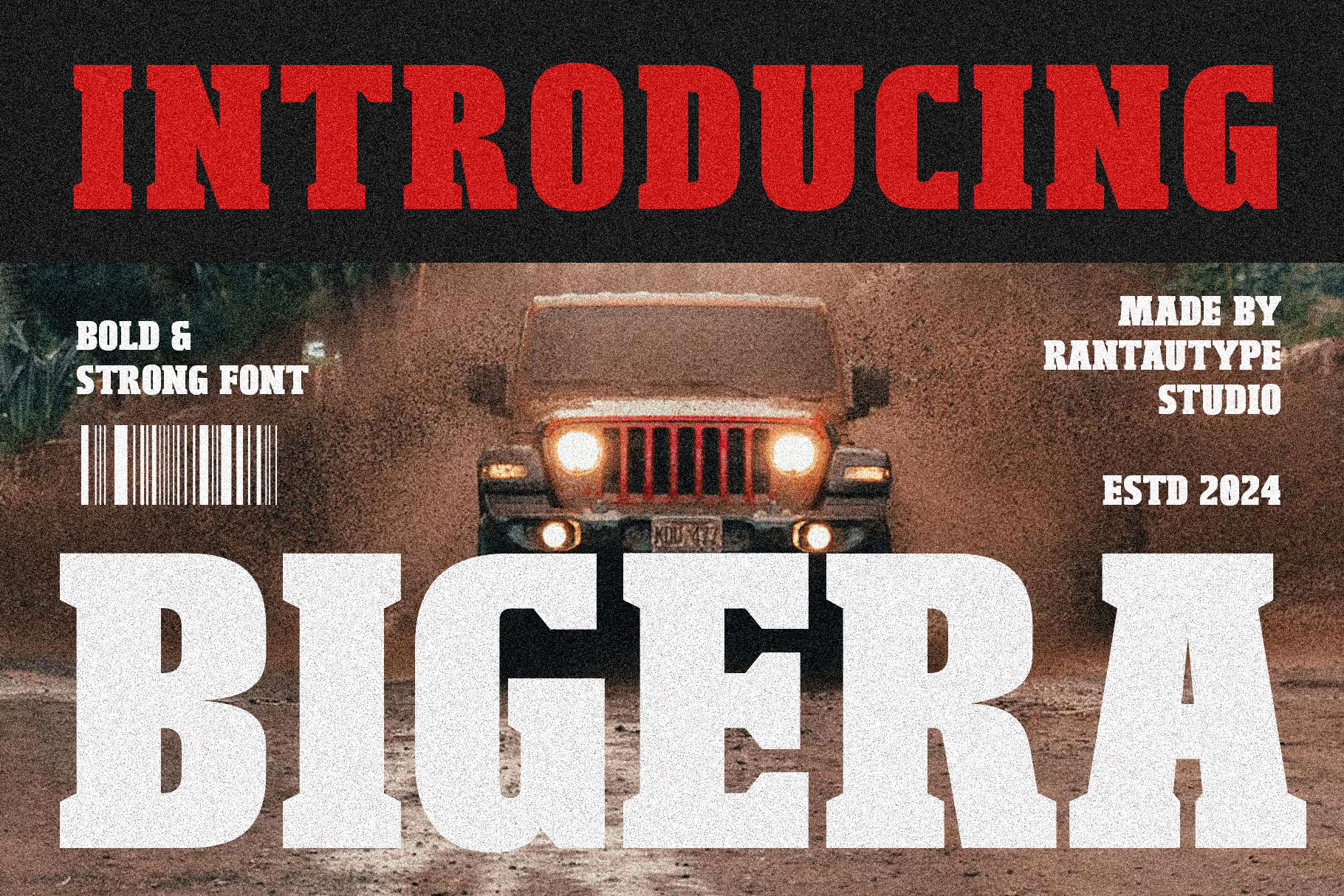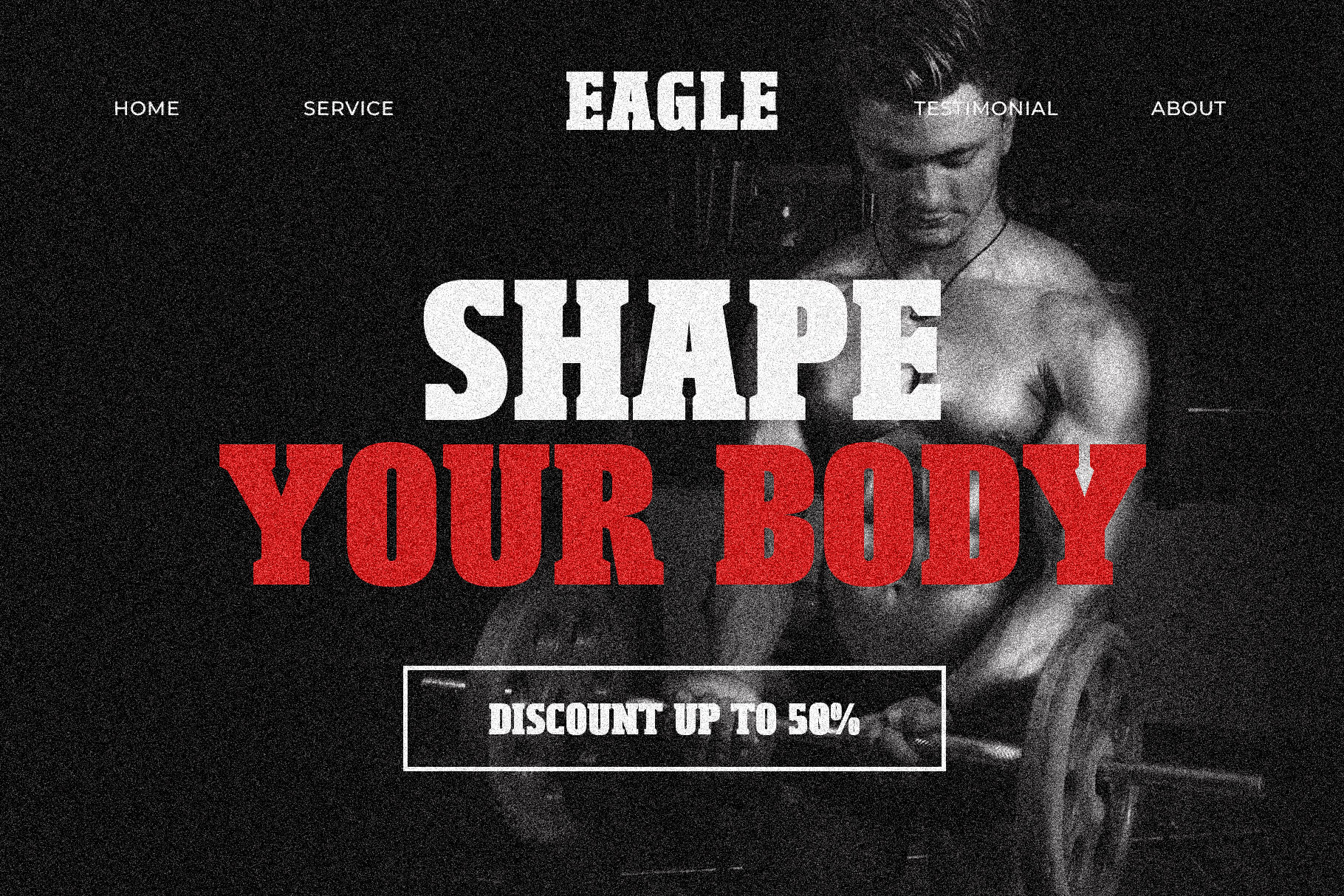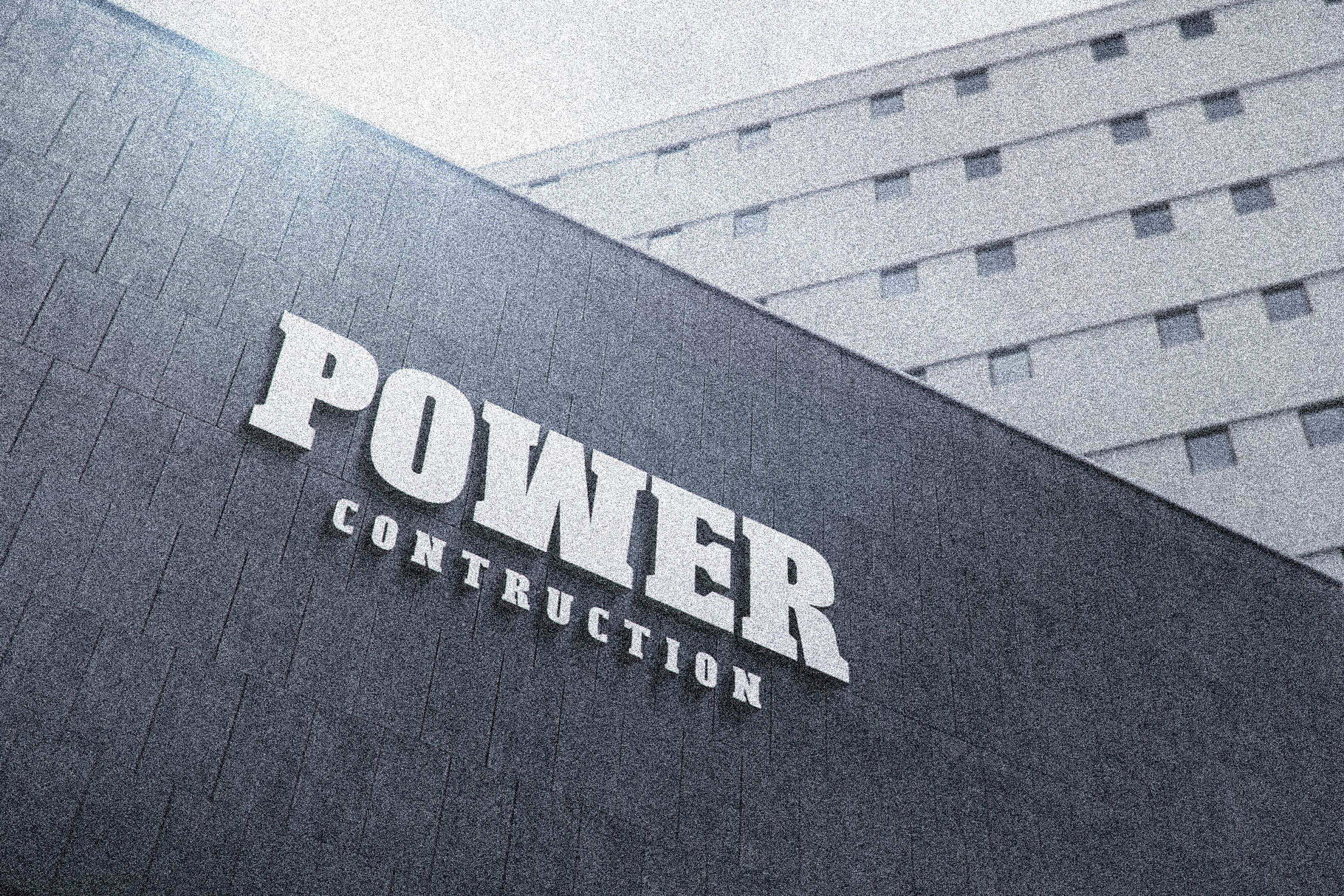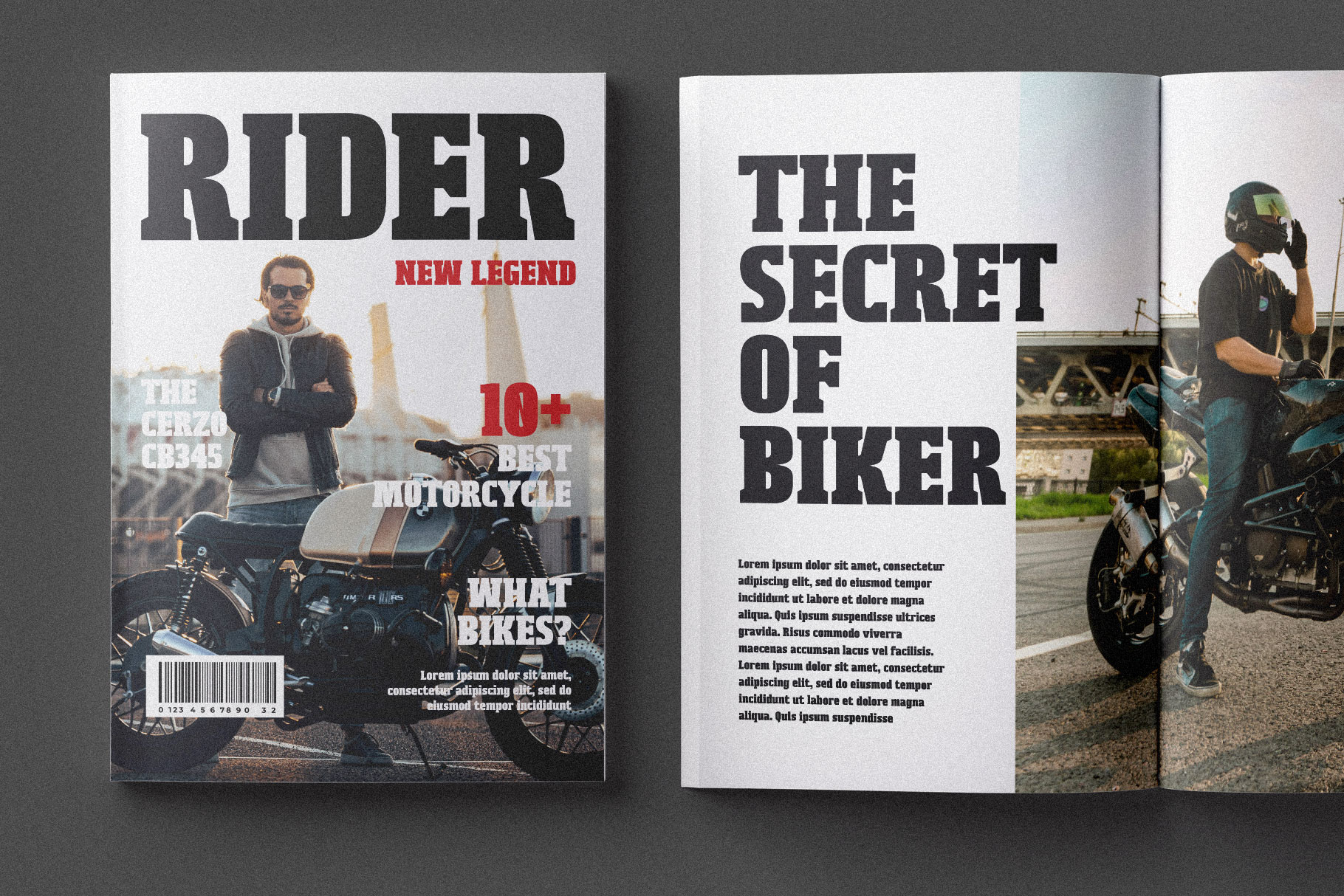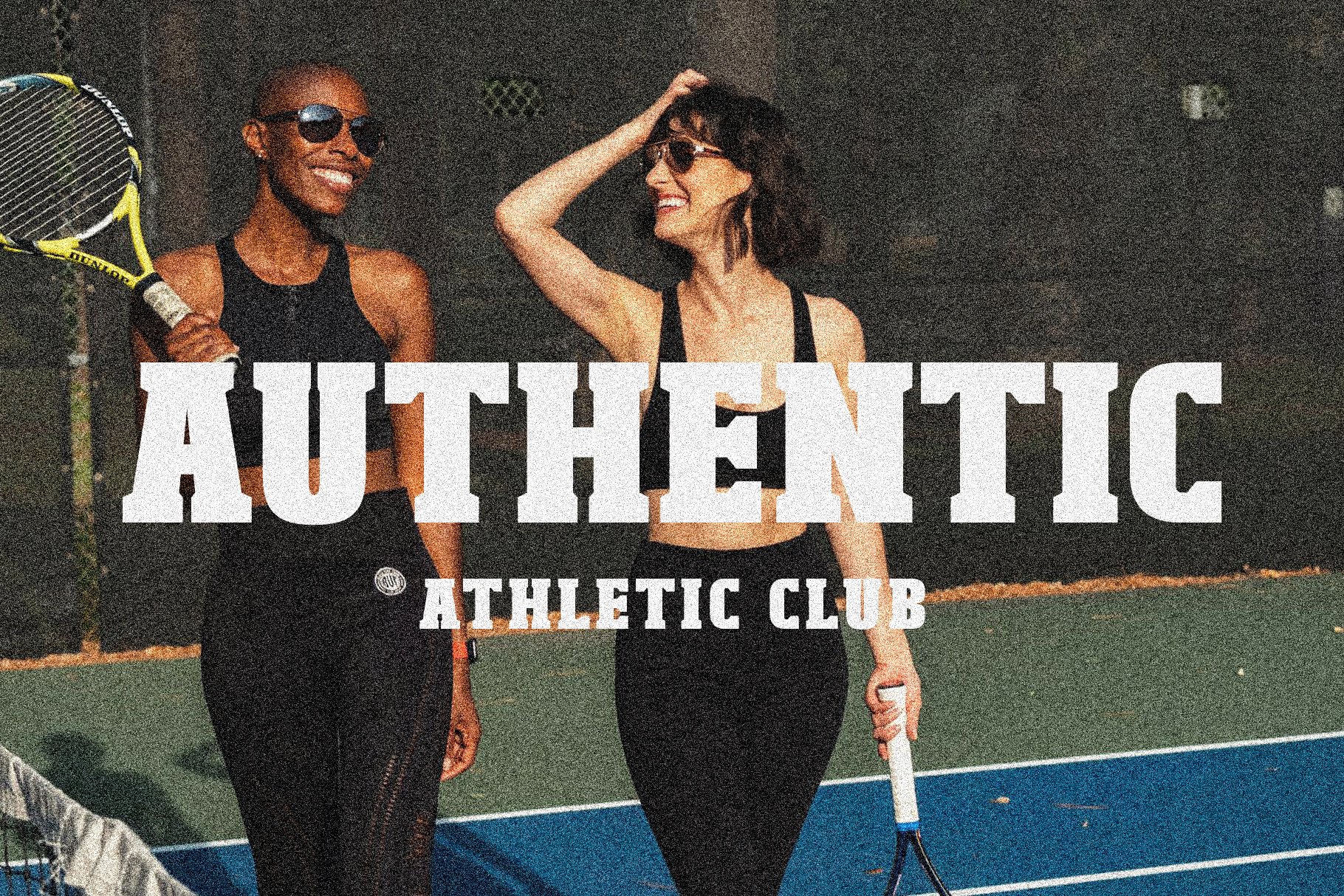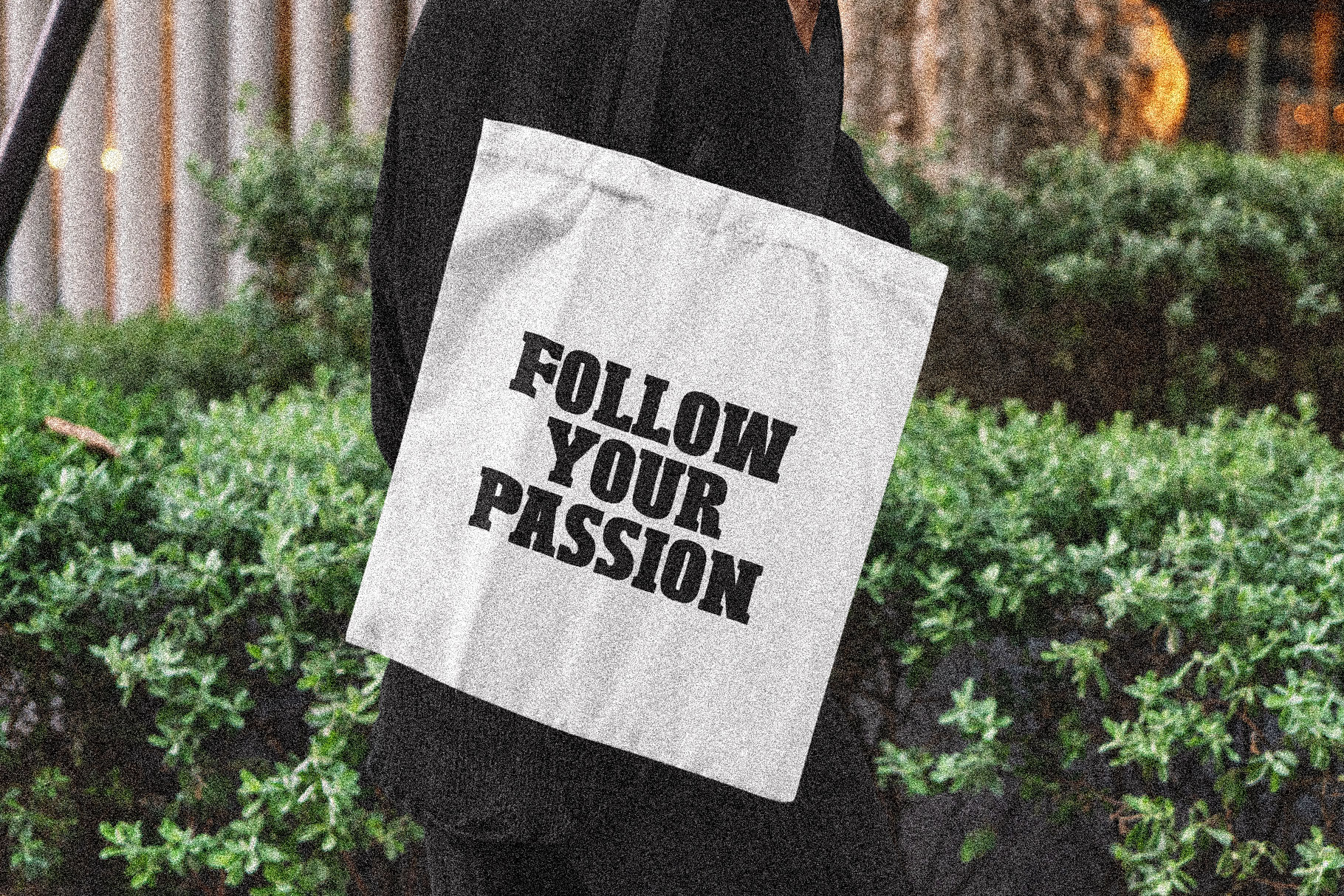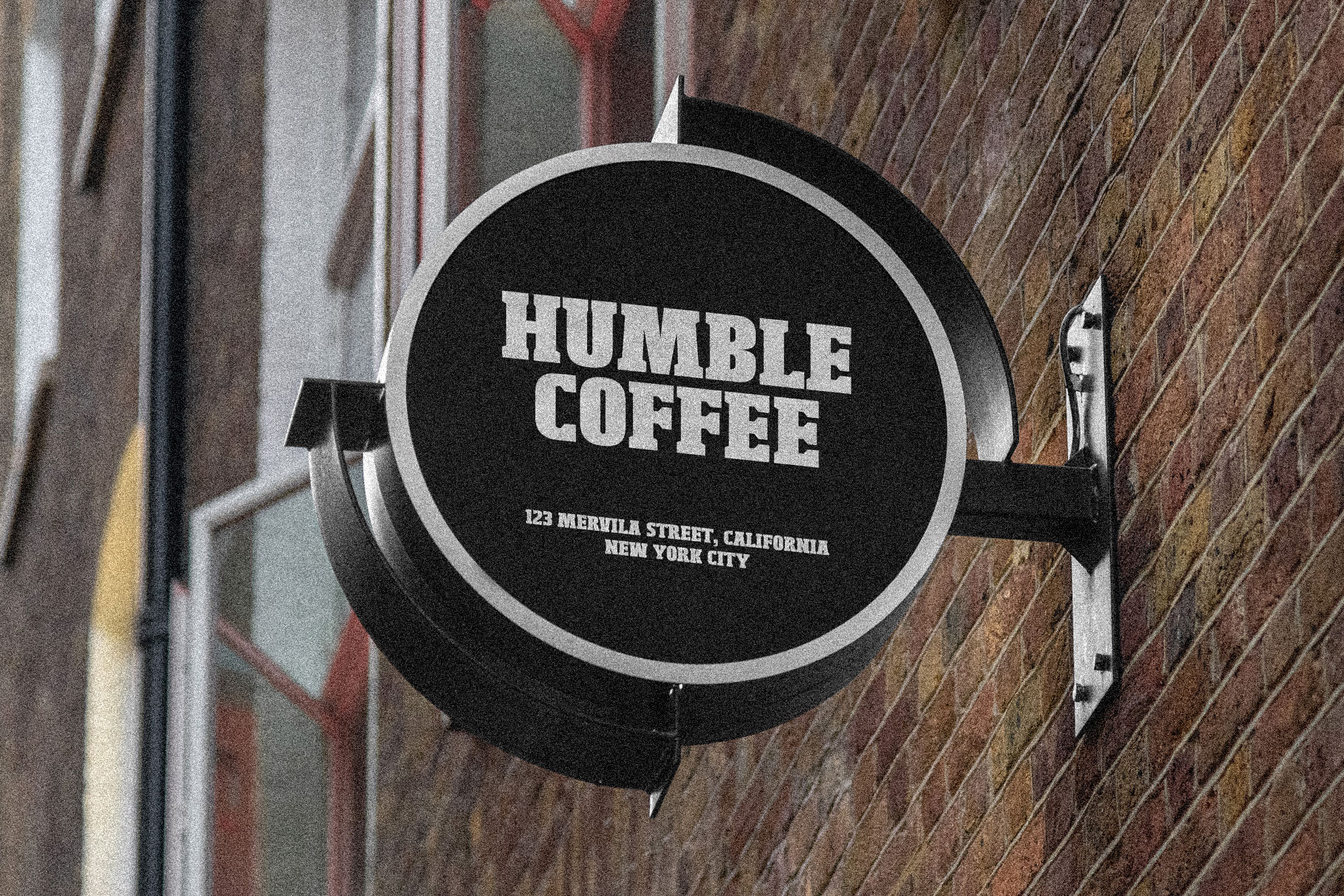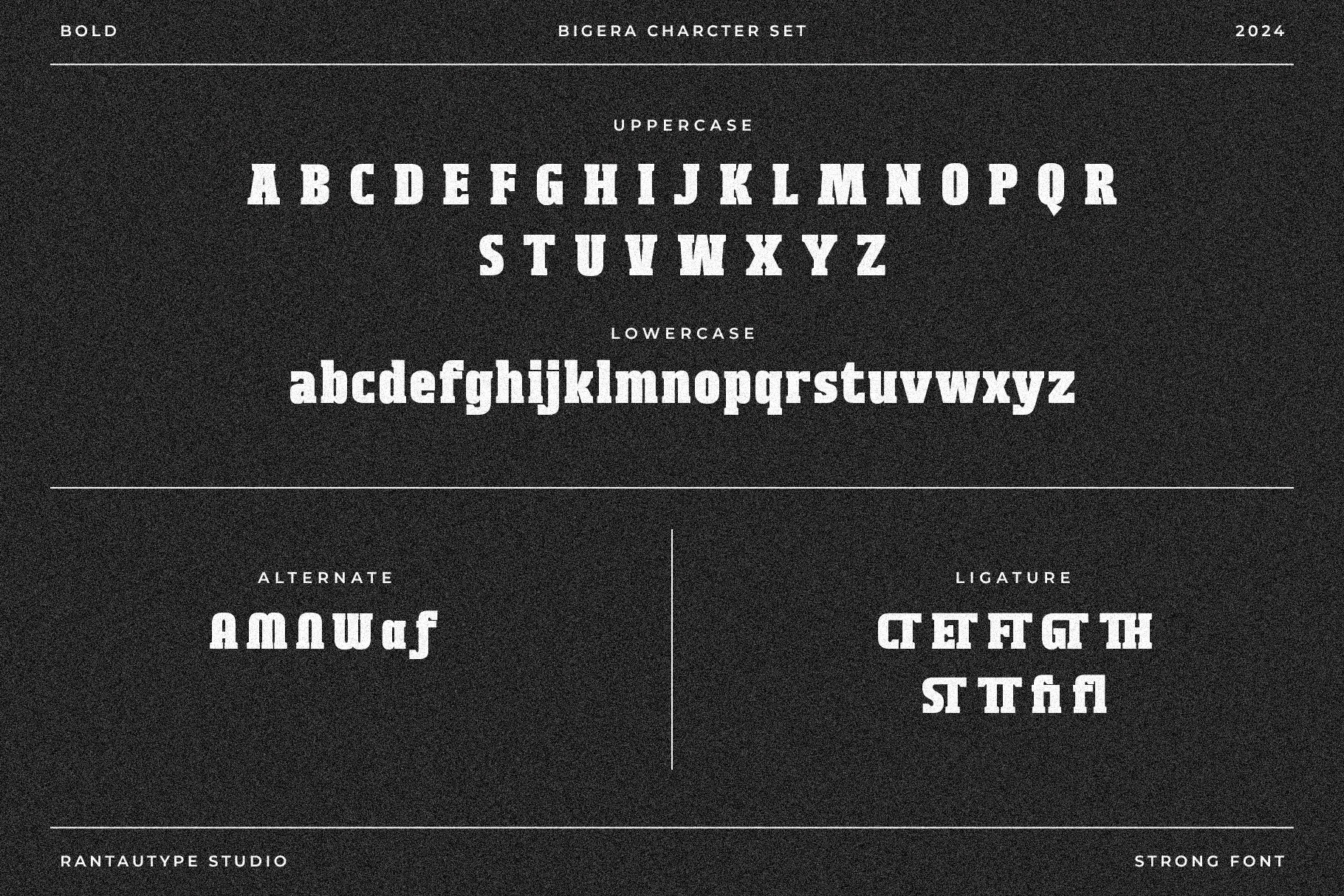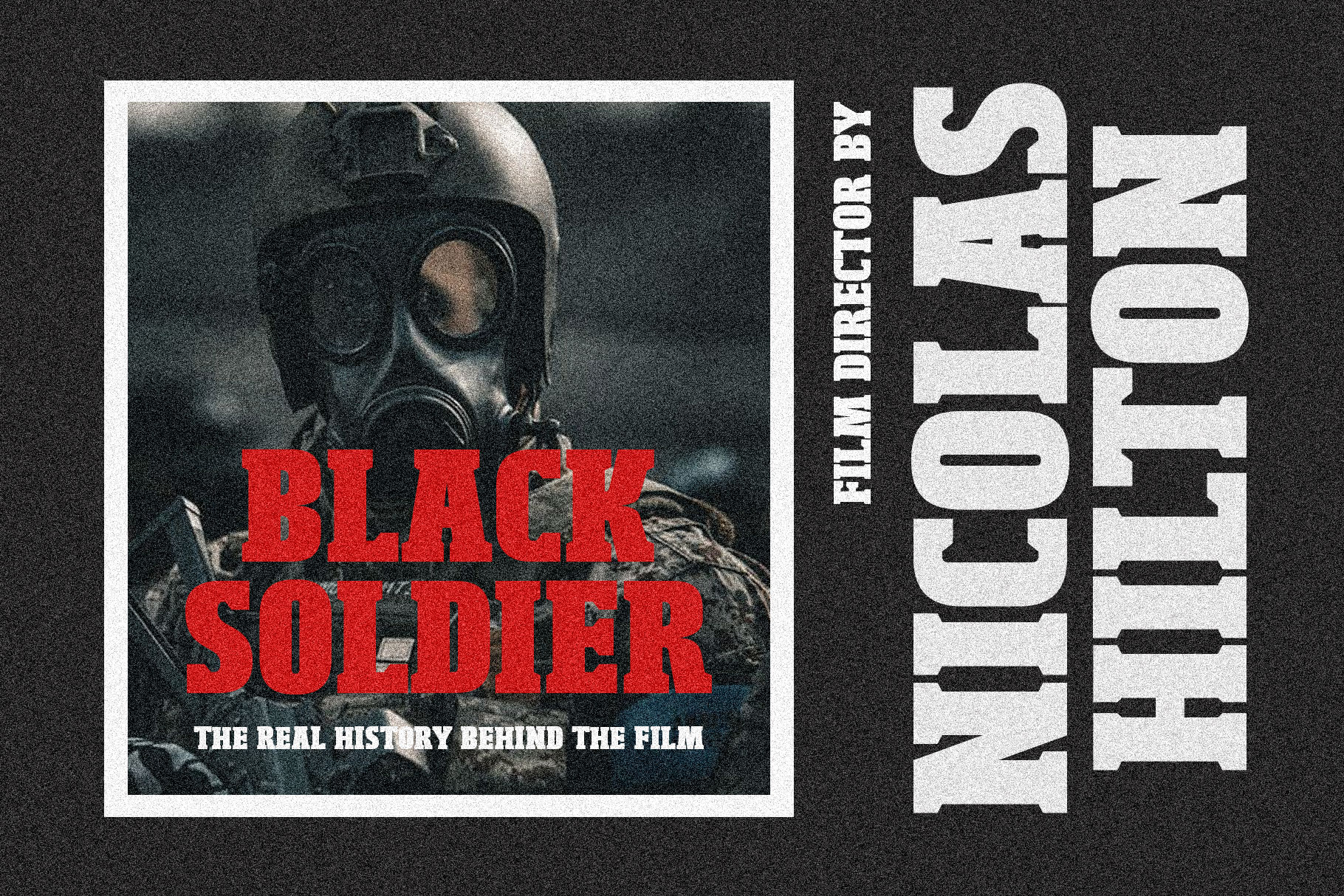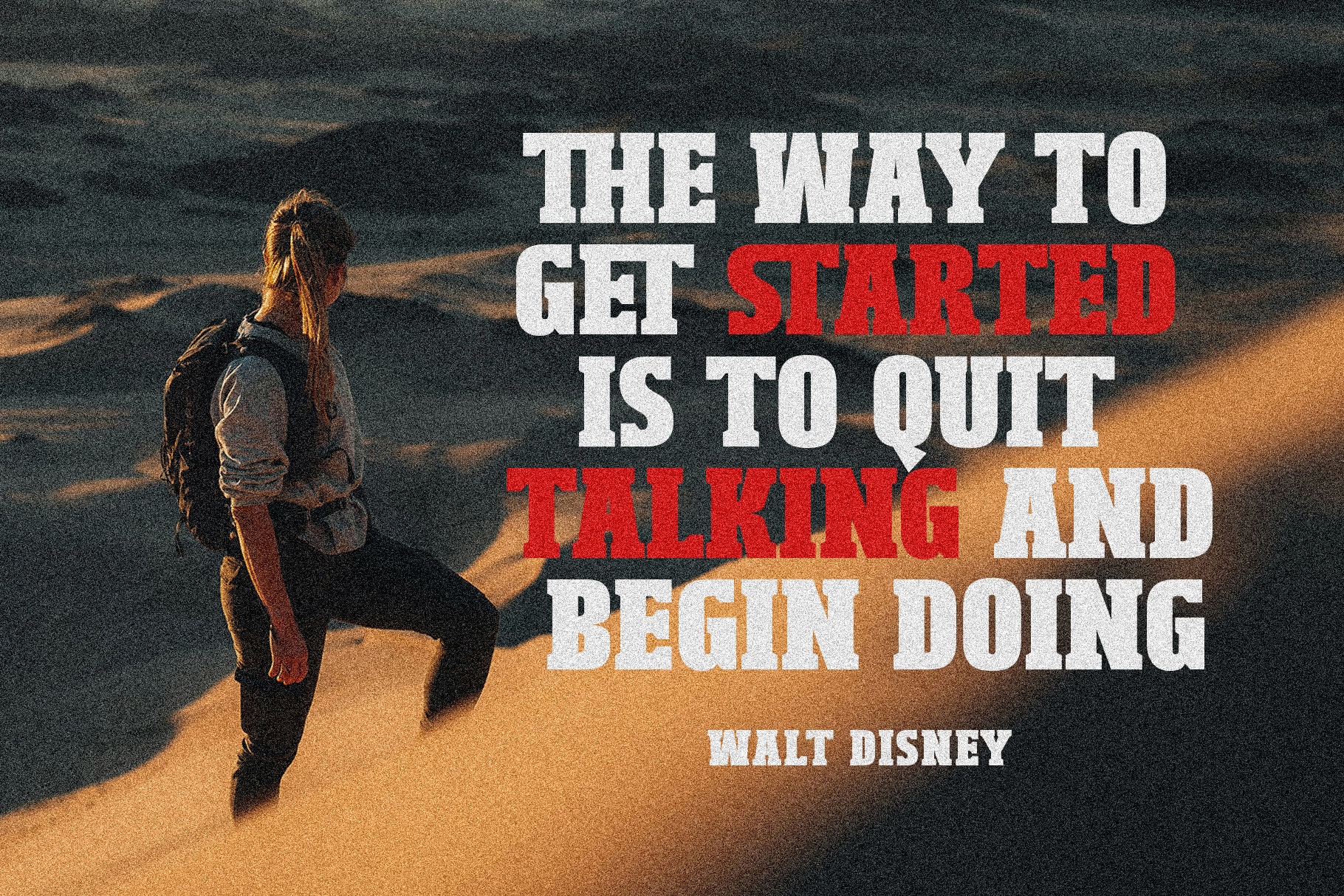
Bigera Bold & Strong Font
Bigera is modern condensed sans serif font with bold and strong geometry shape. Bigera is a perfectly choice for any creative endeavor, chic, lifestyle design such as logotype, advertisements, watermark on photography, stationery, branding project, display and magazine, invitation, corporate brand, product design, label, business project and many other project with modern touch.